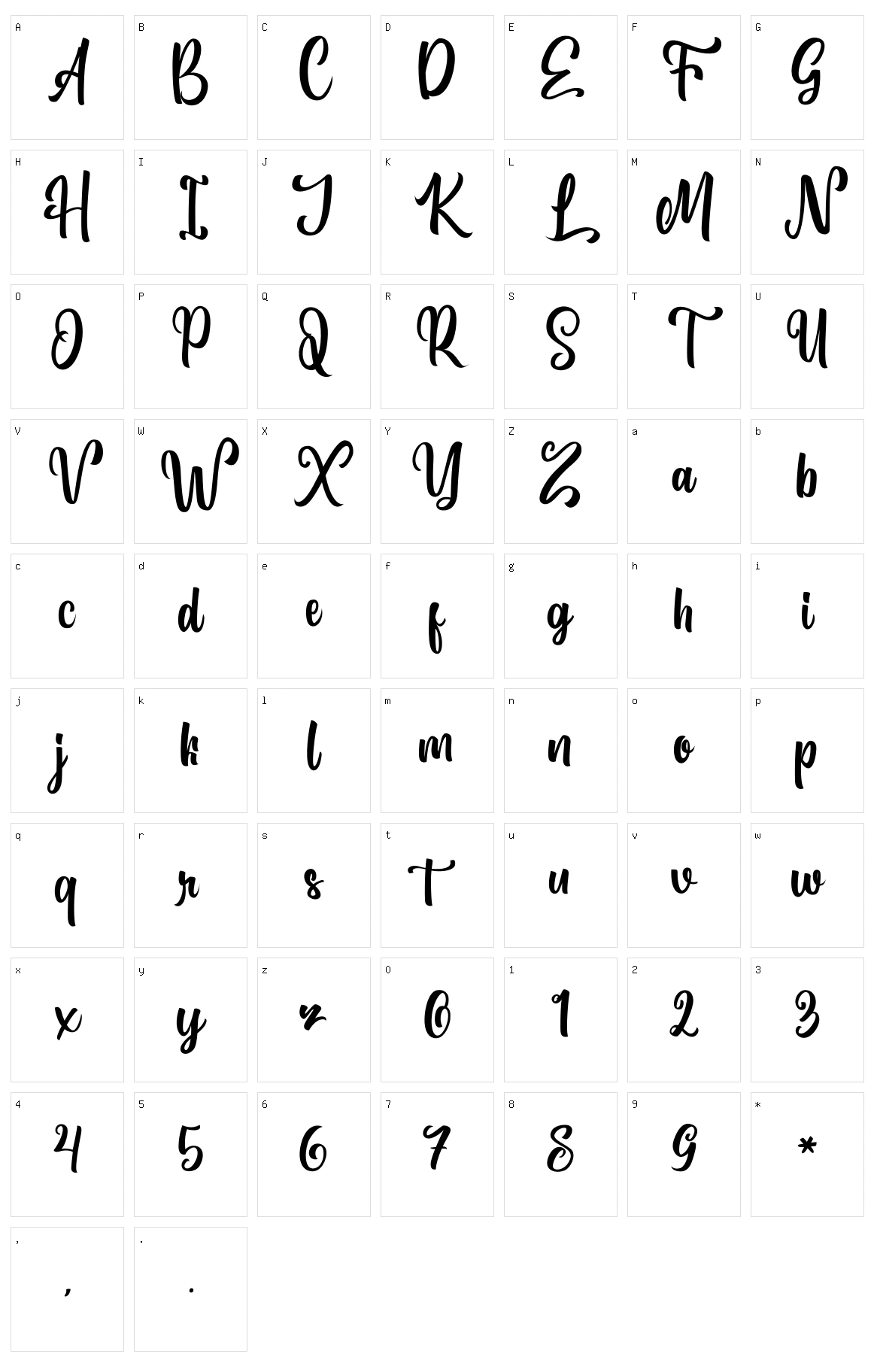
Antharis
Designed by: Aditya Rezki Apriyadi
Description: The free font Antharis is carefully designed by Aditya Rezki Apriyadi, showcasing a thoughtful balance of creativity and usability and falls under the Script font style. When you download the ZIP file, it contains only 36.29 KB of font files, making it lightweight and quick to download. Please review the license details below to understand permitted usage and distribution rights. If license information is not available, we recommend using this font for personal projects only or contacting the author directly for commercial usage permissions.